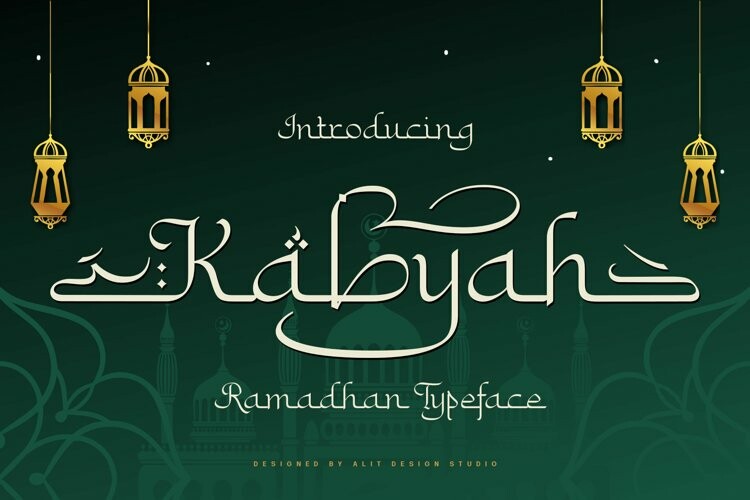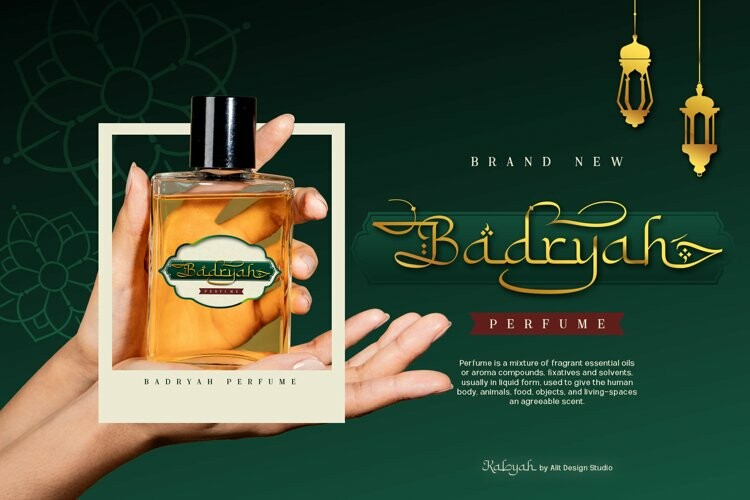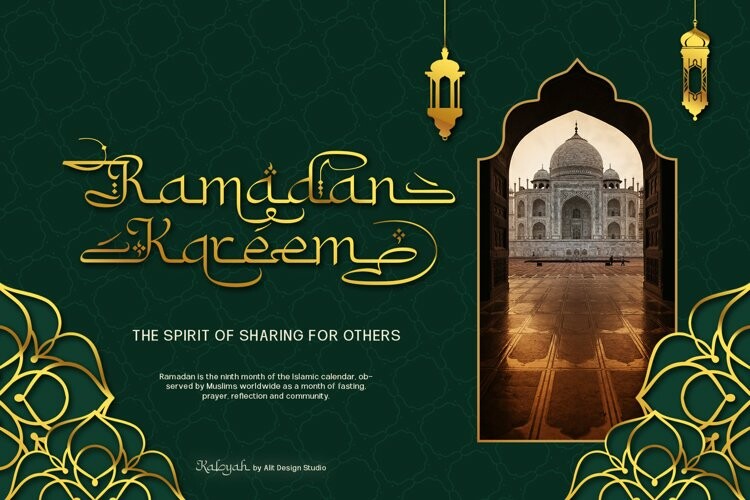
Kabyah Font
Kabyah FontKabyah Ramadhan Typeface is a beautifully crafted font that combines traditional Arabic calligraphy with modern design elements. The font has a contemporary look and feel, with elegant swashes and alternate characters that add a unique touch to any design project.
The font draws inspiration from the rich cultural heritage of the Arabic language, with its intricate shapes and ornate embellishments. The strokes and curves of Kabyah Ramadhan Typeface are carefully crafted to create a harmonious balance between legibility and aesthetic appeal.
With its clean lines and precise detailing, Kabyah Ramadhan Typeface is perfect for a variety of design applications, including branding, packaging, logos, and headlines. It is also an ideal choice for print and digital media, such as posters, brochures, and social media graphics.
The Kabyah Ramadhan Typeface has 820 characters, supports multilingual characters, and includes PUA Unicode encoding, makes it a very versatile font. Designers can use it to create designs in a variety of languages and scripts, making it a great choice for global projects.
In addition to its extensive character set, the font also includes Kabyah Dingbats with 304 characters, which can be used to add decorative elements to designs. These dingbats can be used to create unique and eye-catching designs, adding an extra layer of creativity to any project.
Overall, Kabyah Ramadhan Typeface seems like a fantastic font with a lot of potential for designers who are looking for an Arabic-inspired modern font with lots of characters and flexibility.